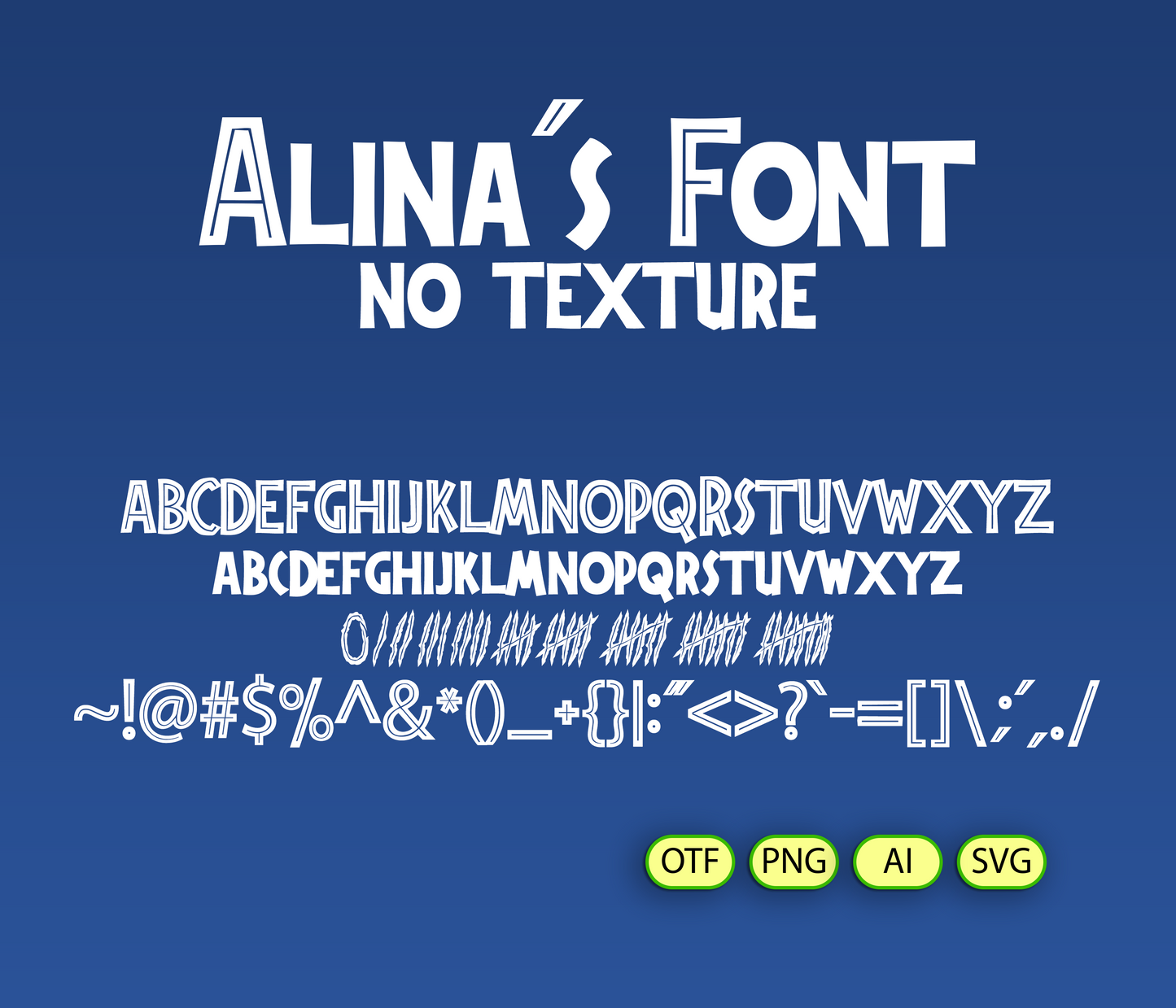
Prehistoric Park Font
Step into the thrilling world of ancient giants with our Prehistoric Park Font No Texture, capturing the essence of dinosaur encounters and modern scientific adventure. Perfect for paleontology enthusiasts, themed event planners, content creators, and creative professionals, this font brings the bold, adventurous spirit of extinct creature stories to your projects. Create eye-catching invitations, merchandise, or digital content with the dramatic energy of dinosaur expedition narratives.
Bold Typography for Adventure Design & Paleontology Projects
Our Prehistoric Park Font No Texture features dramatic, stylized letterforms with smooth, clean surfaces reflecting the world of ancient reptiles and tropical island settings.
• Event Promotions: Create eye-catching invitations, posters, and banners for themed parties, science conventions, and gatherings that capture the spirit of dinosaur entertainment
• Merchandise Design: Perfect for t-shirts, posters, stickers, and accessories that showcase the bold aesthetic of prehistoric creature themes
• Digital Media: Enhance websites, blogs, and social media with adventurous headers and graphics that express the excitement of dinosaur expeditions
• Creative Content: Add authentic flair to fan art, character designs, and creative projects inspired by ancient creature tales
• Personal Projects: Bring thrilling energy to scrapbooking, DIY crafts, and home decor inspired by the world of magnificent prehistoric animals
Our font pays tribute to the world of dinosaur adventure stories and paleontology cinema, empowering your projects with its bold and adventurous spirit. Whether crafting fan materials, designing themed products, or adding a prehistoric touch to personal projects, this font communicates the vibrant essence of ancient creature entertainment. Ready to inject dinosaur excitement into your creations? This font is your key to eye-catching, impactful design.